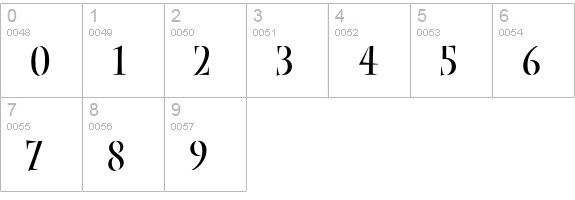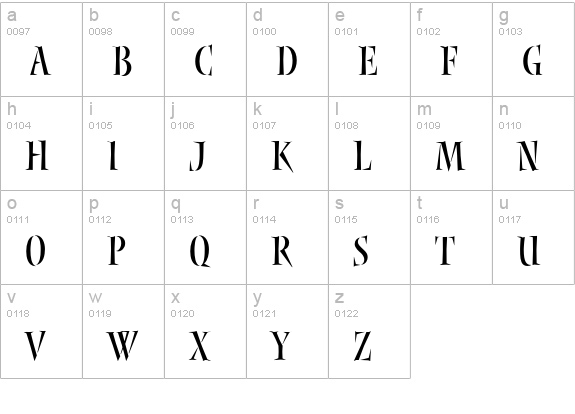
Nyx Std Font Details
Nyx Std font is a modern and elegant typeface that exudes sophistication and versatility. With its clean lines and balanced proportions, Nyx Std is perfect for a wide range of design projects, from branding to editorial design. This sleek font offers a timeless appeal that can elevate any creative work to the next level. The best part about Nyx Std font is that it is completely free to use! You can easily download this stunning typeface at FontsMarket.com and start incorporating it into your projects right away. Whether you're working on a website, a poster, a logo, or any other design, Nyx Std font is sure to make a bold statement and leave a lasting impression. Don't miss out on the opportunity to enhance your designs with this fantastic font - download Nyx Std today!